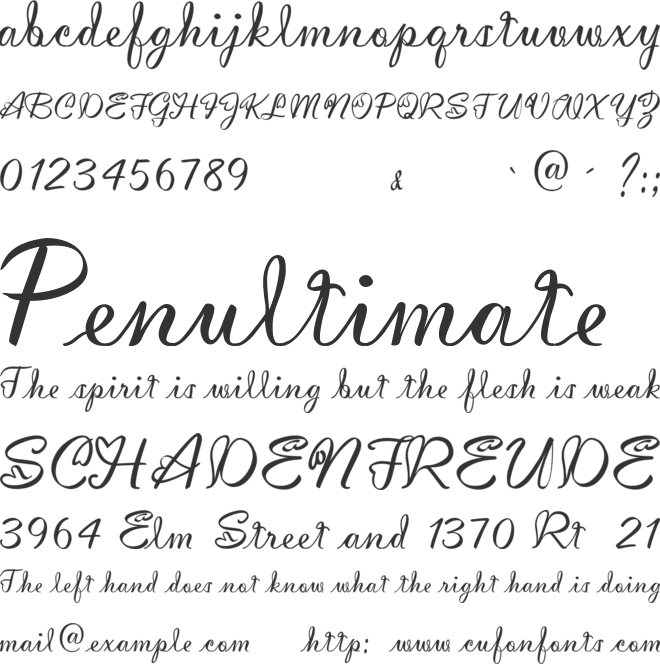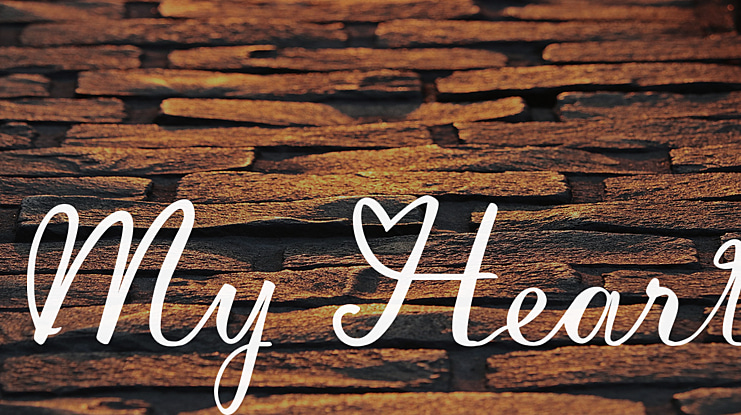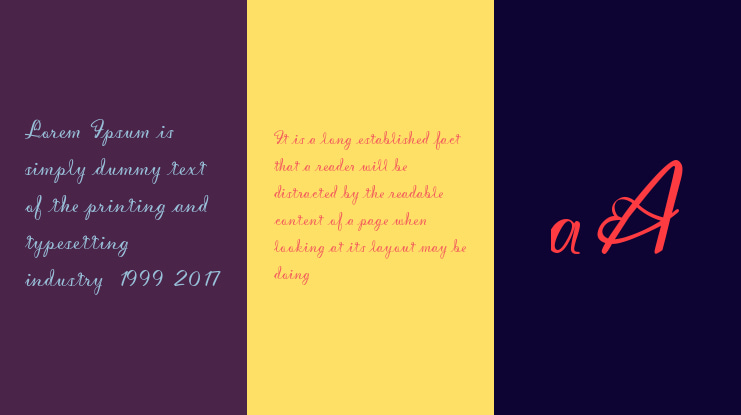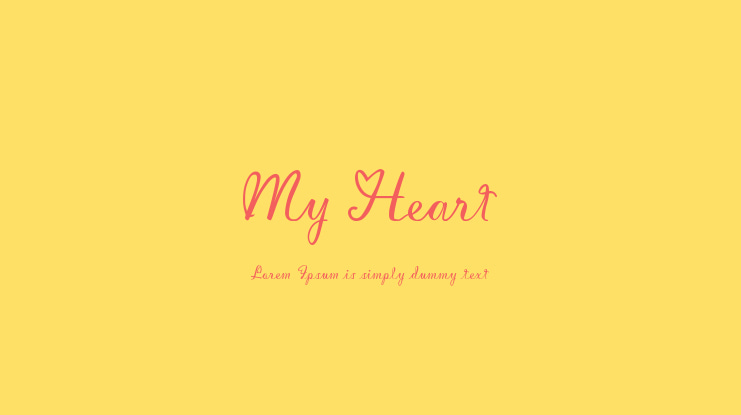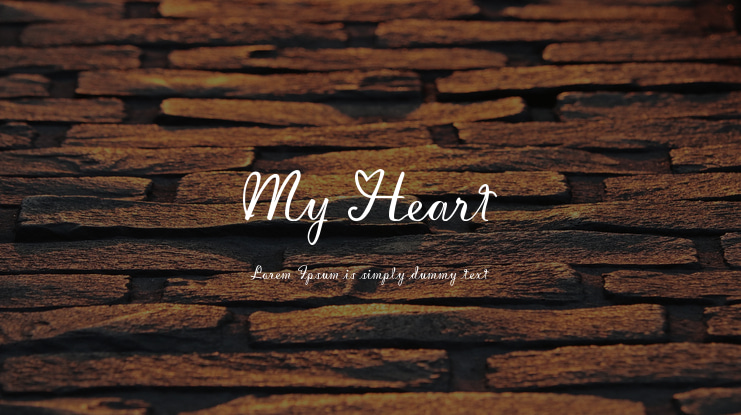
My Heart Font
As the name suggests, My Heart is a stunning and elegant handwritten font with bold letters. This will add an authentic touch to every design project and add beauty to the writing. This demo font is free for personal users. thank you.